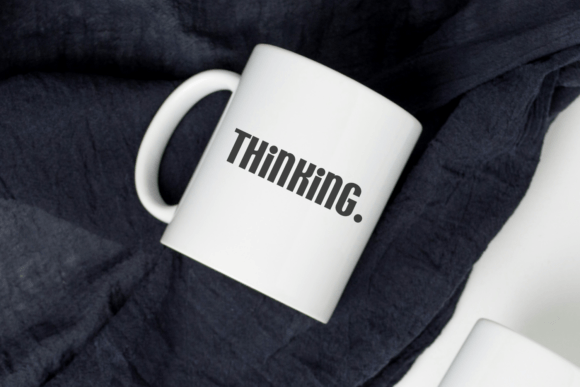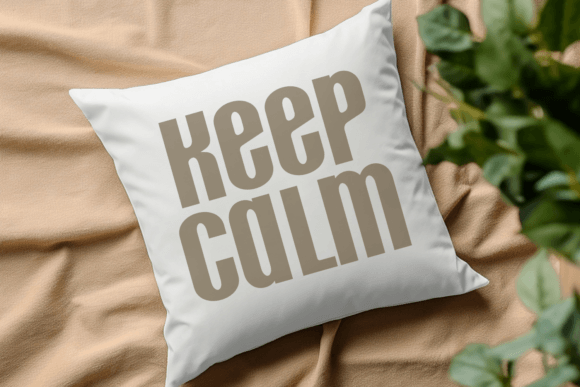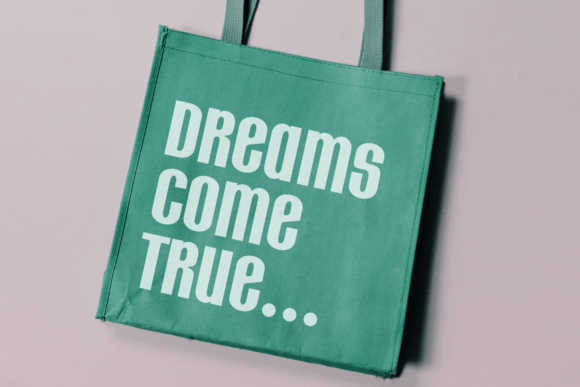
Introduction to Foresa Font
As a designer, there’s nothing quite like the thrill of discovering a new font that sparks inspiration for your creative project. For me, that moment came when I stumbled upon Foresa Font – a sleek and modern sans-serif font that perfectly captures the essence of nature’s simplicity and elegance.
With its clean lines, smooth curves, and excellent readability, Foresa Font is a design resource that stands out from the crowd. Its versatility and timelessness make it the perfect addition to any project, whether you’re working on a branding campaign, web design, or minimalist layout. But what really sets Foresa Font apart is its high quality and transparent background, making it a valuable asset for designers looking to elevate their work.
Key Features of Foresa Font
- Unique characteristics include a modern and sleek design aesthetic, making it perfect for use in digital design, graphic design, and branding.
Honest Review: Foresa Font
- ✨ Clean and modern design: The Foresa Font has a sleek and sophisticated look that’s perfect for contemporary projects.
- ✨ High-quality typography: The font is crisp and clear, making it ideal for digital designs.
- ⚠️ Limited font styles: While the Foresa Font is available in several weights, it’s not as extensive as some other font collections.
- ⚠️ Limited language support: The font primarily supports Latin-based languages, which may be a limitation for designers working with non-Latin scripts.
Overall, I’m impressed with the Foresa Font. Its modern design, high-quality typography, and free download make it a valuable resource for designers. While it may have some limitations, I believe it’s still a great addition to any design toolkit.
Foresa Font is perfect for creating logos, graphics, presentations, and documents that require a high-quality and unique design. It’s a versatile font that can be used in various creative projects, from business to personal use.